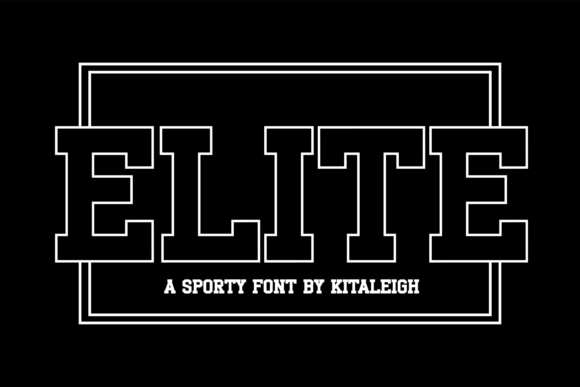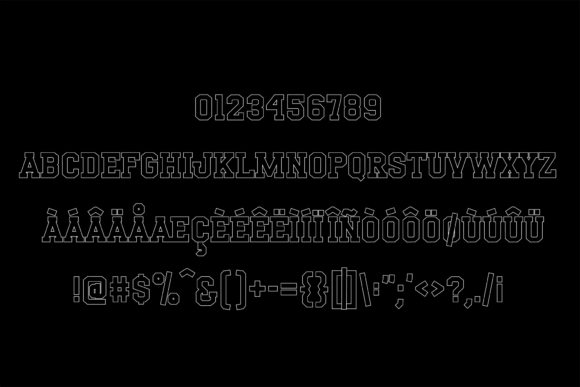
The Elite font is ideal for sports teams and athletic events. With its thin outline and classic style, it adds a bold and professional touch to any logo, making sure your message stands out.
Elite Font